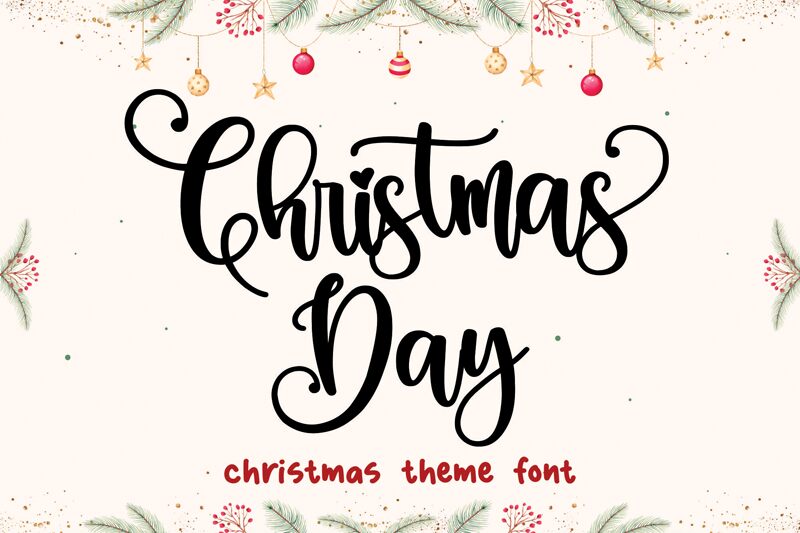
Christmas Day font by Mozatype is a free script font that captures the enchanting and heartwarming spirit of the festive season. With its flowing, elegant, and cheerful design, this font brings a whimsical and inviting touch to any project. The festive charm of Christmas Day makes it an ideal choice for spreading holiday cheer in both personal and professional designs.
Perfect for Christmas cards, holiday invitations, festive posters, social media graphics, and event branding, Christmas Day adds a warm and lively feel to your work. Use it to create eye-catching gift tags, product packaging, seasonal banners, and more.